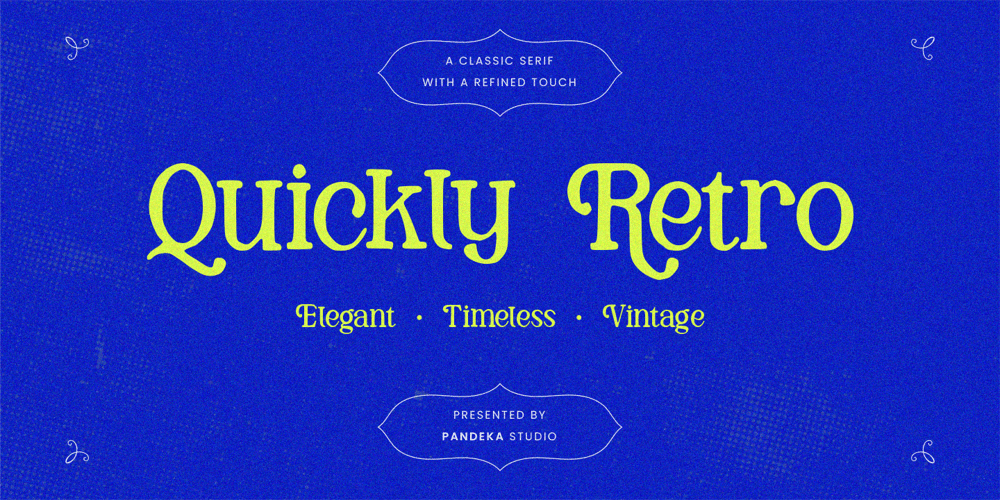
Quickly Retro
Quickly Retro font
Quickly Retro Font Family was designed by Sagara Nararya and published by Pandeka Studio. Quickly Retro contains 1 styles and family package options. Quickly Retro – Classic Elegant SerifQuickly Retro is a vintage-inspired serif font that blends timeless elegance with a retro aesthetic. Perfect for classic branding, editorial designs, packaging, book covers, stylish lettering, and sophisticated typography, it adds a refined yet nostalgic touch to any project.What’s Included: Main Files formats 1 Style: Regular Full Character Set: Uppercase, lowercase, numbers, symbols, and punctuation Easy to Use: Works on both PC & Mac Compatible with Adobe Illustrator, Photoshop, Microsoft Word, Canva, and more PUA Encoded: Fully accessible without additional software Classic Elegant Font Retro Typography Timeless Design Vintage Aesthetic Stylish Lettering Sophisticated Style Unique TypefaceThank you and happy designing!Pandeka Studio